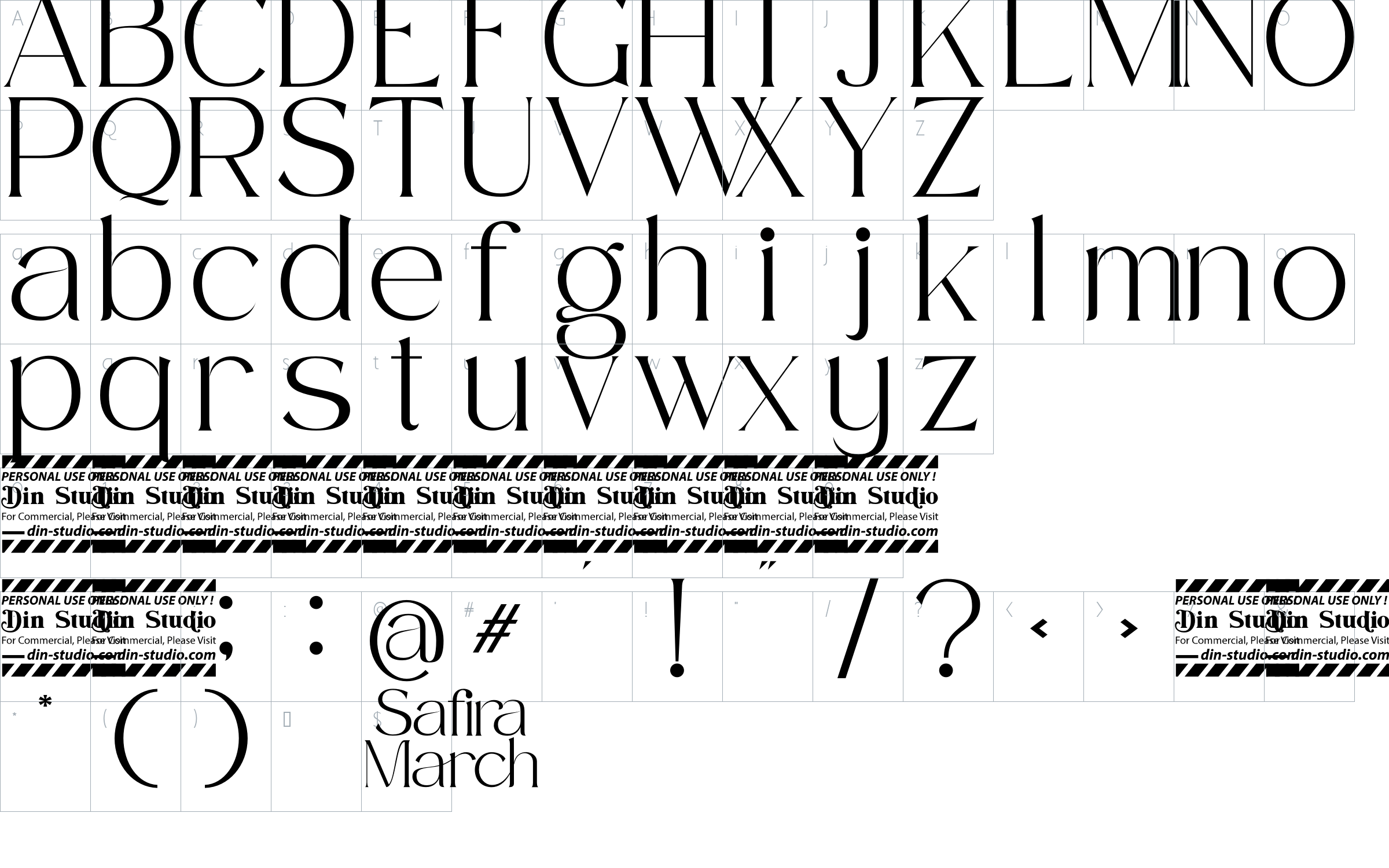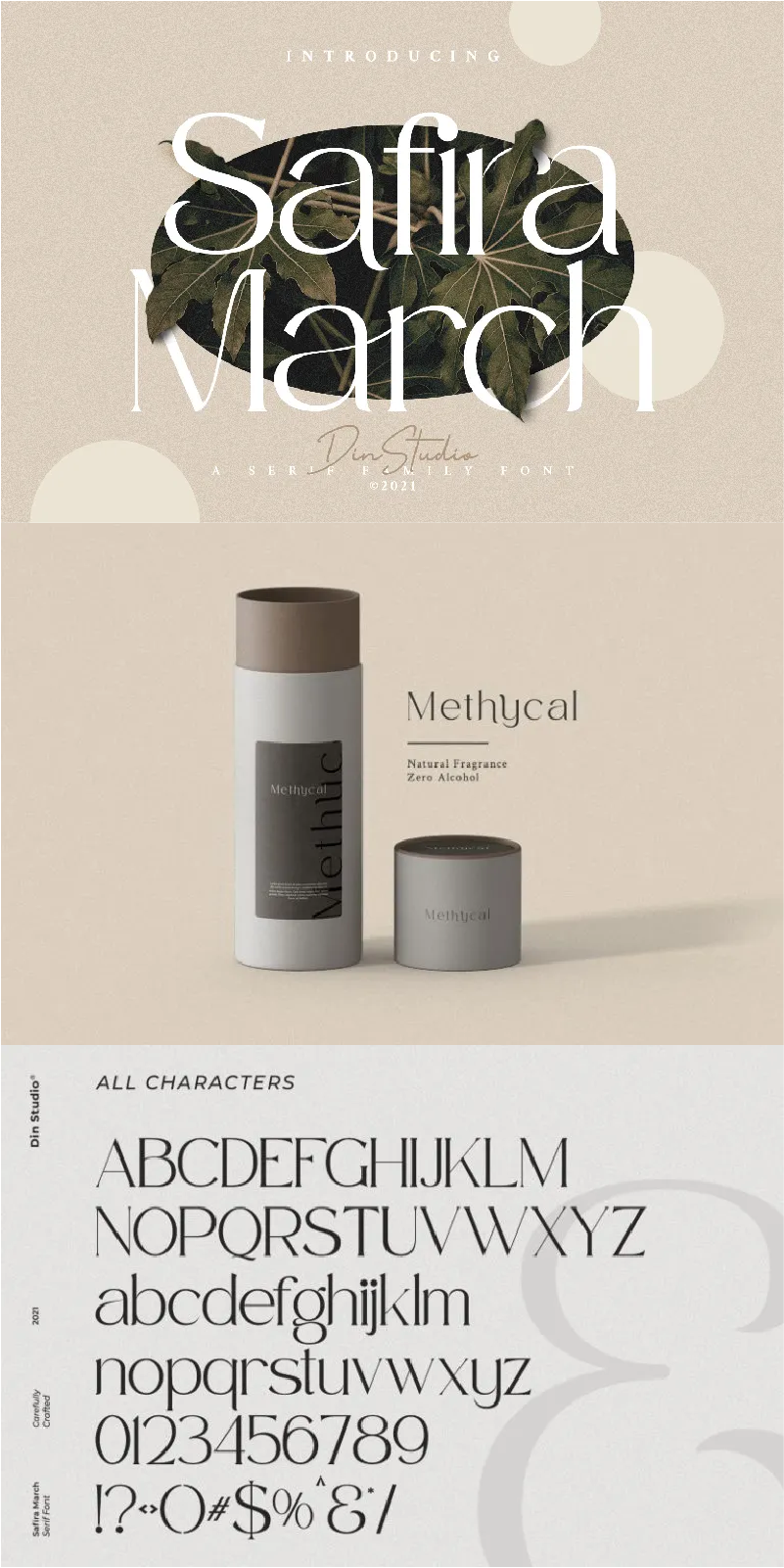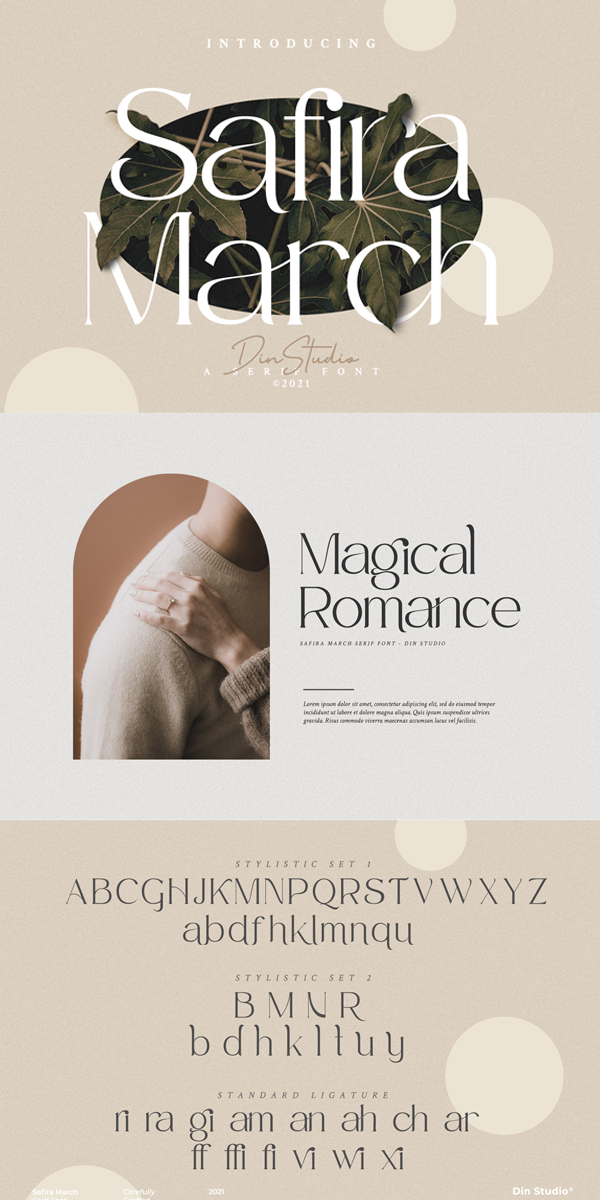
Safira March Font
About Safira March
Safira March- A Serif Font
This gorgeous font will engage your audience and make your promotions and projects stand out. Bring your branding to life and add a touch of modernity and style with Safira March. Use it for headings, logos, business cards, printed quotes, invitations of all sorts, cards, packaging, and your website or social media branding.
-Standard Ligatures